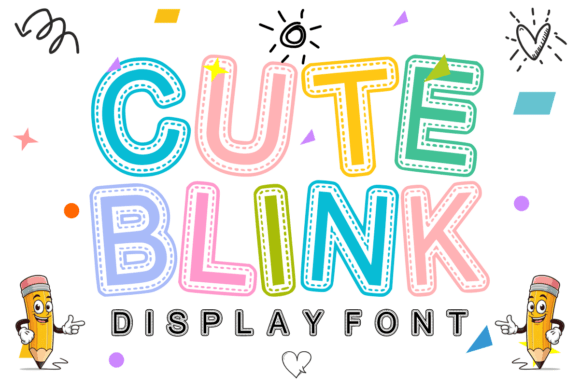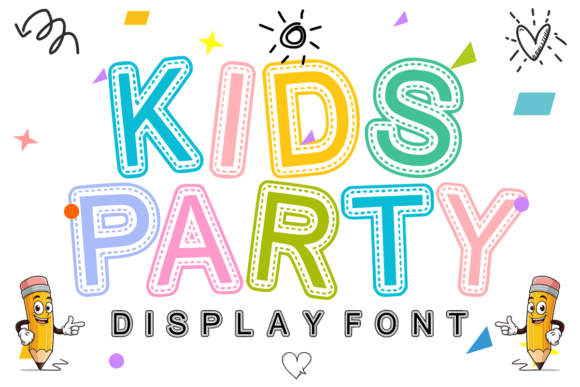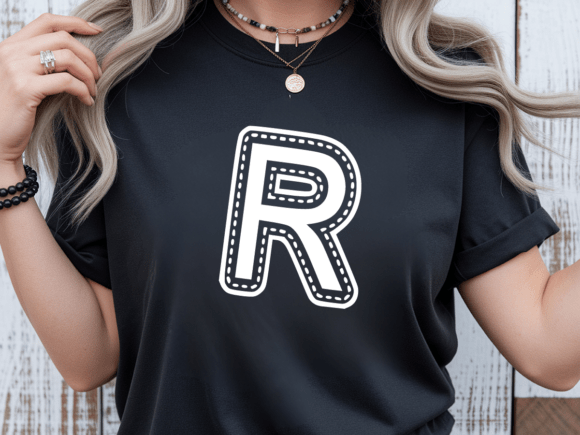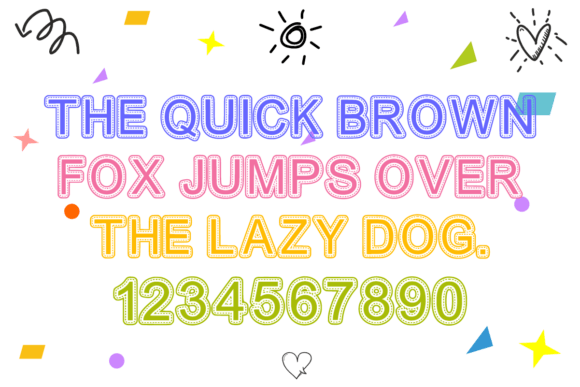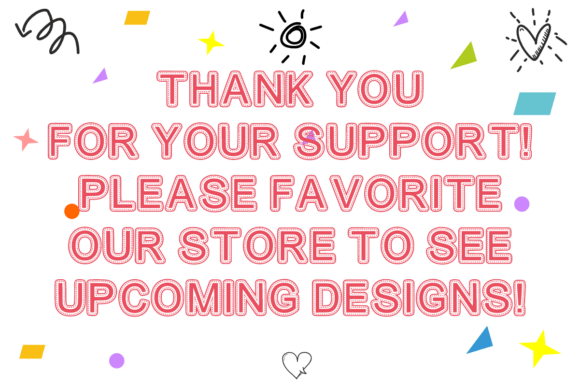
Bring Whimsy to Your Designs with Cute Blink Font
Do you remember the excitement of making handmade crafts as a child? The feeling of creating something special with your own two hands, watching it come to life with every stitch, every cut, and every color? That same sense of joy and wonder can be infused into your designs with the help of Cute Blink Font. This adorable display font features a charming dashed-line stitch effect inside bold, bubbly letters, giving it a unique “handmade patch” or “embroidery” look.
Cute Blink Font is more than just a design element – it’s a way to add personality and whimsy to your projects. Whether you’re a designer, crafter, or educator, this font is a valuable tool to have in your arsenal. Its rounded edges and decorative inner lines make every word pop with a handcrafted personality, making it perfect for anything kid-related, from school posters to cute merchandise.
Cute Blink Font Key Features
- Font Family: Cute Blink is a sans-serif font family designed for digital use.
- Unique Characteristics: Features a distinctive, rounded design with a subtle ‘blink’ effect, perfect for adding a touch of whimsy to digital interfaces.
Cute Blink Font Review
I recently had the chance to work with the Cute Blink Font, and I must say it’s a mixed bag. Let’s start with the good stuff!
- ✨ Unique aesthetic: Cute Blink has a distinct, playful feel that’s hard to find in other fonts.
- ✨ Versatility: It’s suitable for a wide range of projects, from children’s books to social media graphics.
- ✨ Customization options: The font includes various styles and weights, allowing for some flexibility in design.
However, there are some limitations that might make it less appealing to some designers:
- ⚠️ Limited legibility: At smaller sizes, Cute Blink can become difficult to read, especially in body text.
- ⚠️ Overuse: Its cute and playful nature can make it feel overused or clichéd if not used thoughtfully.
- ⚠️ Technical issues: Some users have reported issues with font rendering and compatibility.
Overall, I’d say Cute Blink is a great choice for designers who want to add a touch of whimsy to their projects. Just be mindful of the limitations and use it in moderation.
Tips for Getting the Most Out of Cute Blink Font
Use the Cute Blink font for whimsical and playful designs, such as children’s party invitations or social media graphics.
Combine the Cute Blink font with other fonts for a unique and eye-catching look.
Experiment with different font sizes and styles to add emphasis and visual interest to your design.
Cute Blink font is perfect for:
Children’s party invitations and decorations
Social media graphics and ads
Blog posts and articles with a playful tone
Alternatives to Cute Blink Font for Designers
Pacifico is a beautiful, elegant script font perfect for creating a sophisticated and stylish look. It’s ideal for use in branding, packaging, and advertising materials where a touch of sophistication is required.
Compared to Cute Blink Font, Pacifico has a more refined and polished appearance, making it suitable for high-end designs. While Cute Blink Font is playful and fun, Pacifico exudes a sense of luxury and sophistication.
Great Vibes is a modern, cursive script font that’s perfect for creating a friendly and approachable look. It’s ideal for use in social media graphics, blog posts, and other online content where a casual tone is desired.
Compared to Cute Blink Font, Great Vibes has a more relaxed and laid-back feel, making it suitable for designs that require a sense of approachability and friendliness. While Cute Blink Font is playful, Great Vibes is more casual and easy-going.
Carolyna Pro is a elegant, modern script font that’s perfect for creating a sophisticated and stylish look. It’s ideal for use in branding, packaging, and advertising materials where a touch of elegance is required.